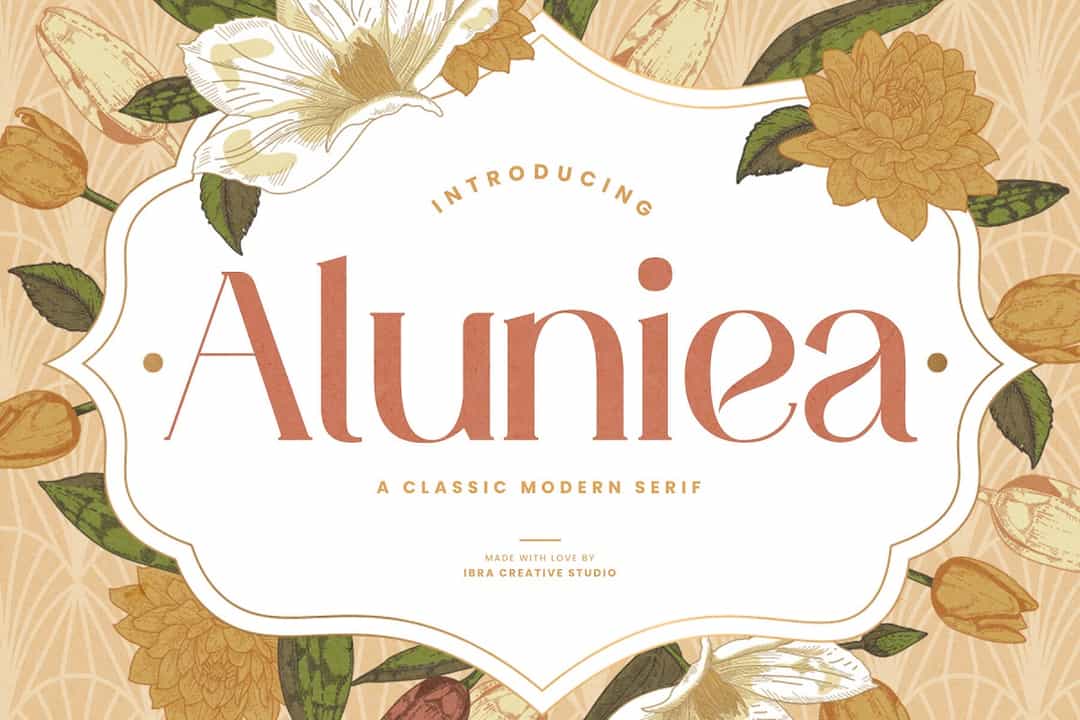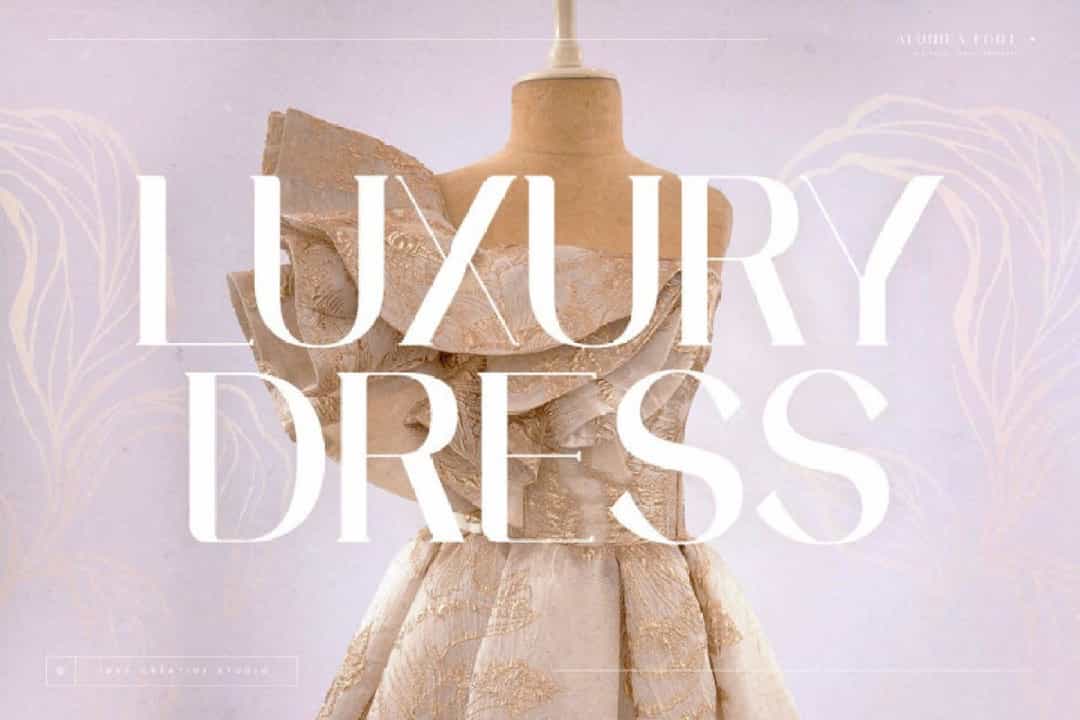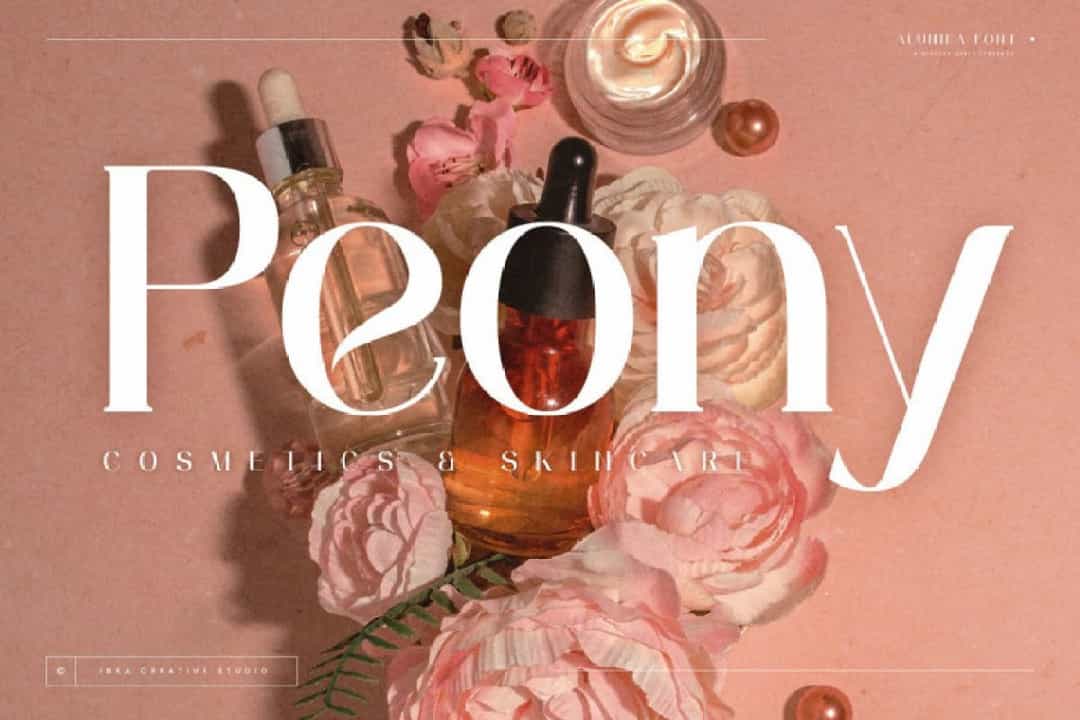
Aluniea is a timeless contemporary serif typeface that expertly marries classic elegance with modern design sensibilities. Boasting well-balanced letters, elegant strokes and exquisite details, Aluniea font is both sophisticated and versatile, making it suitable for use across various applications related to design.